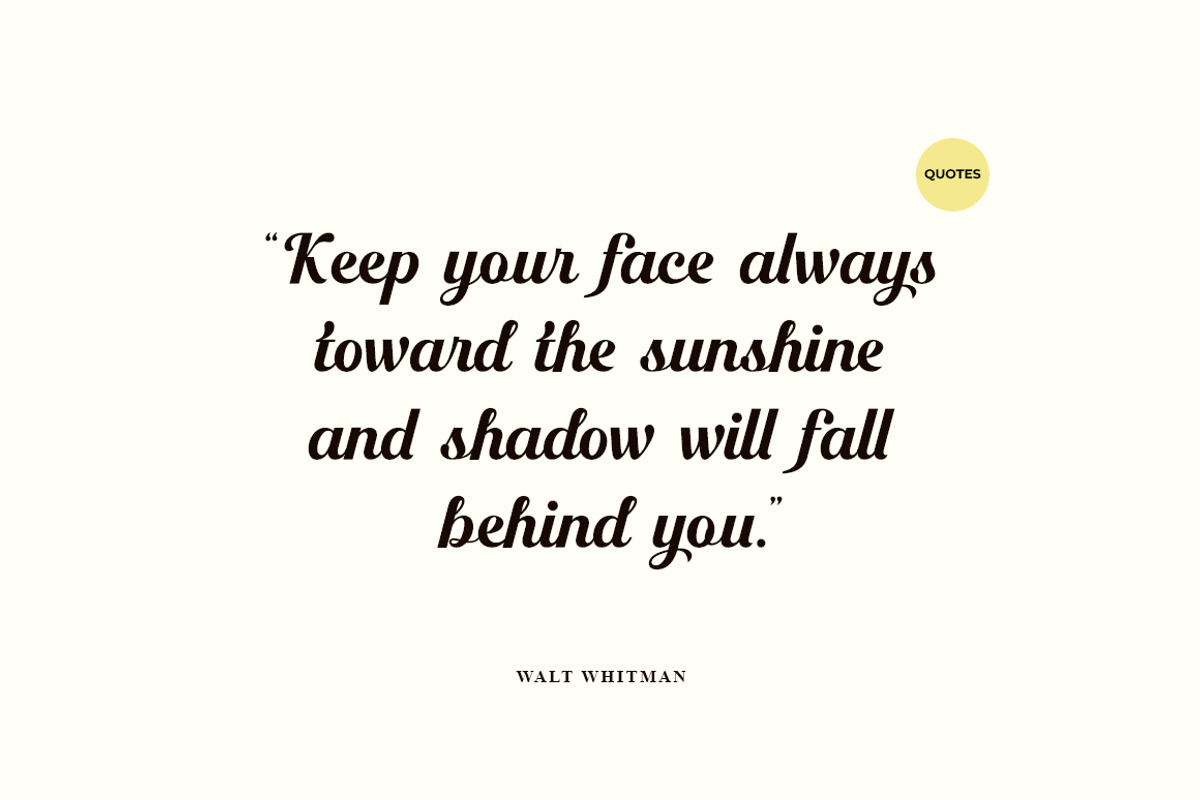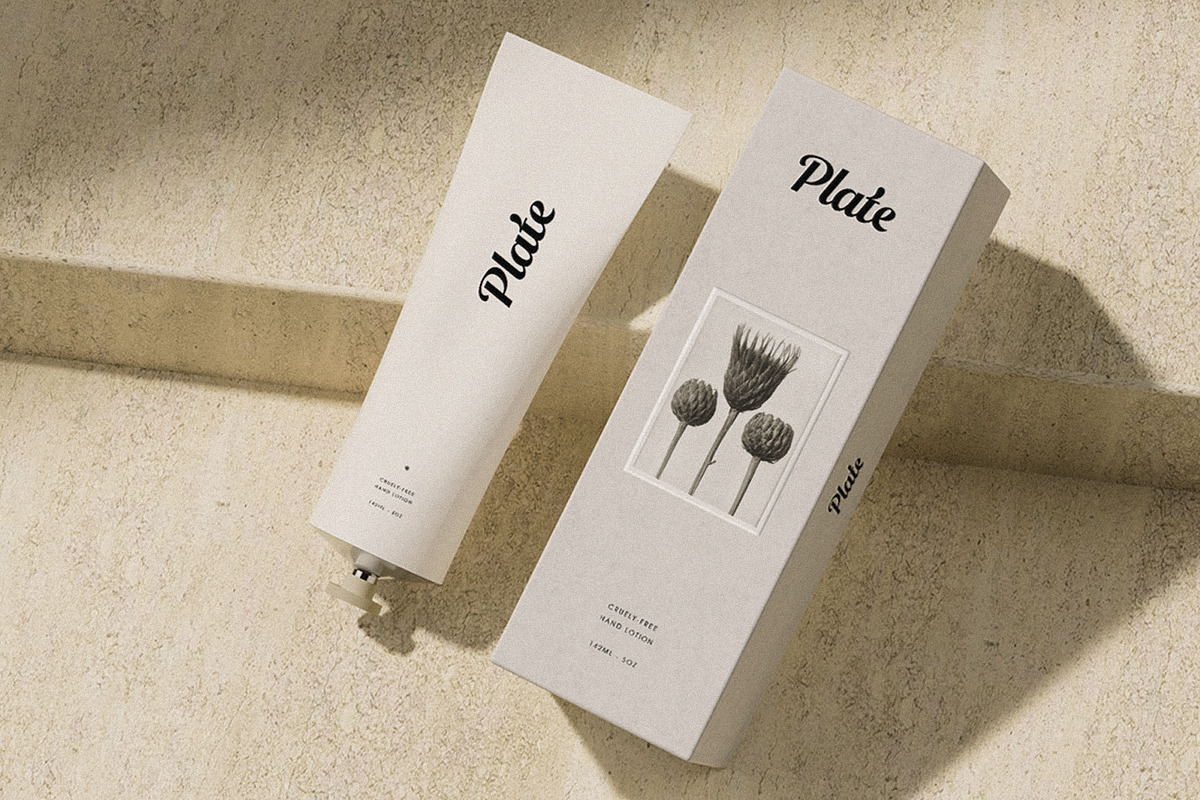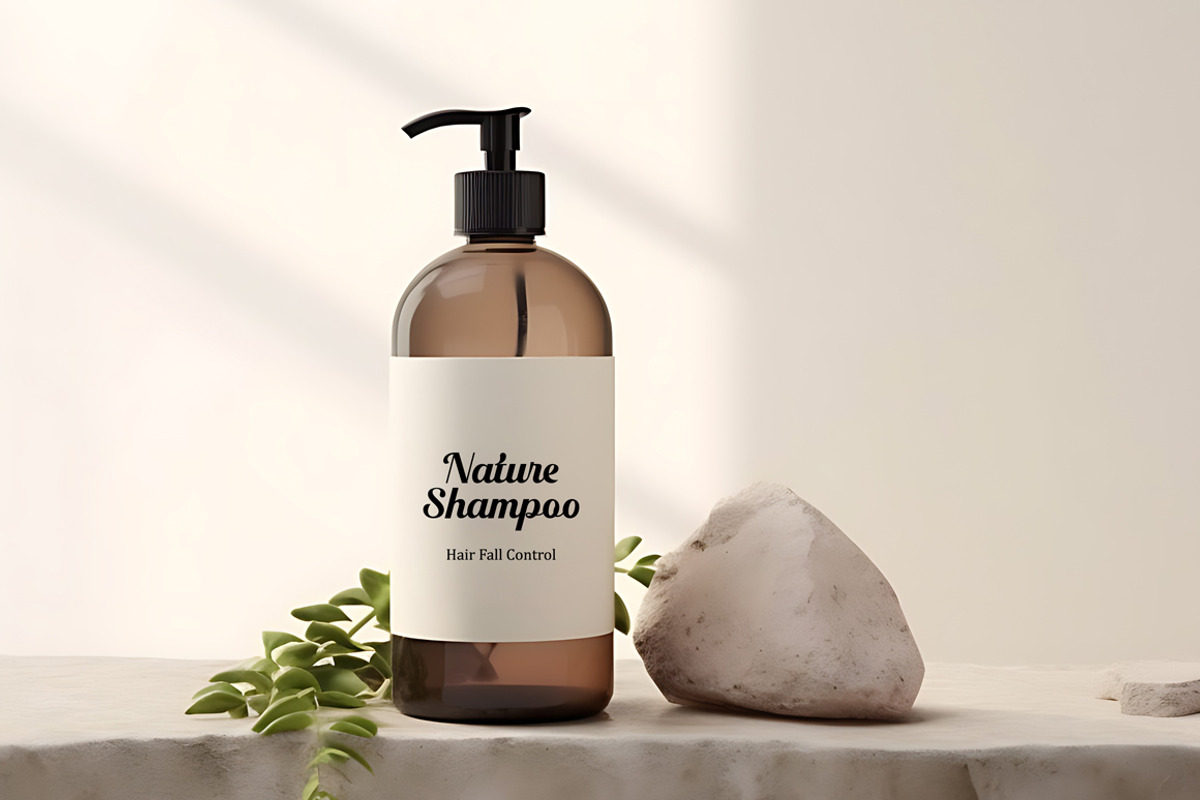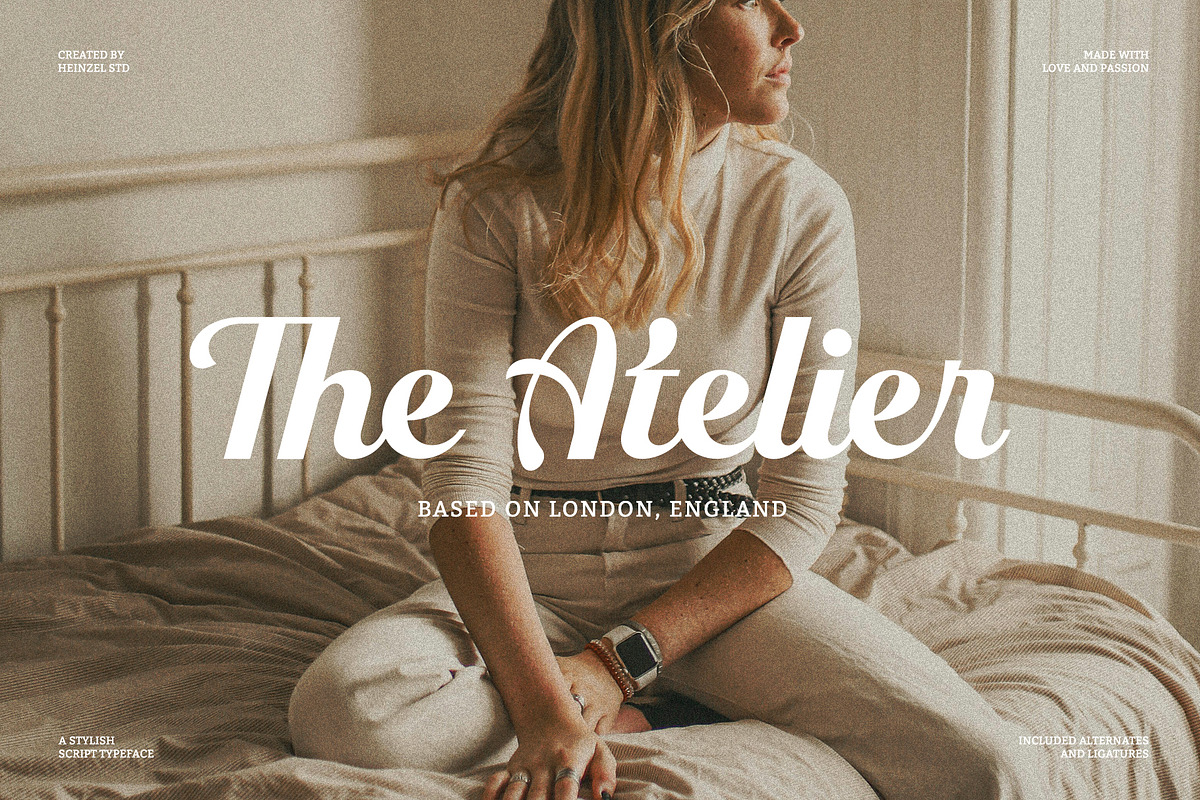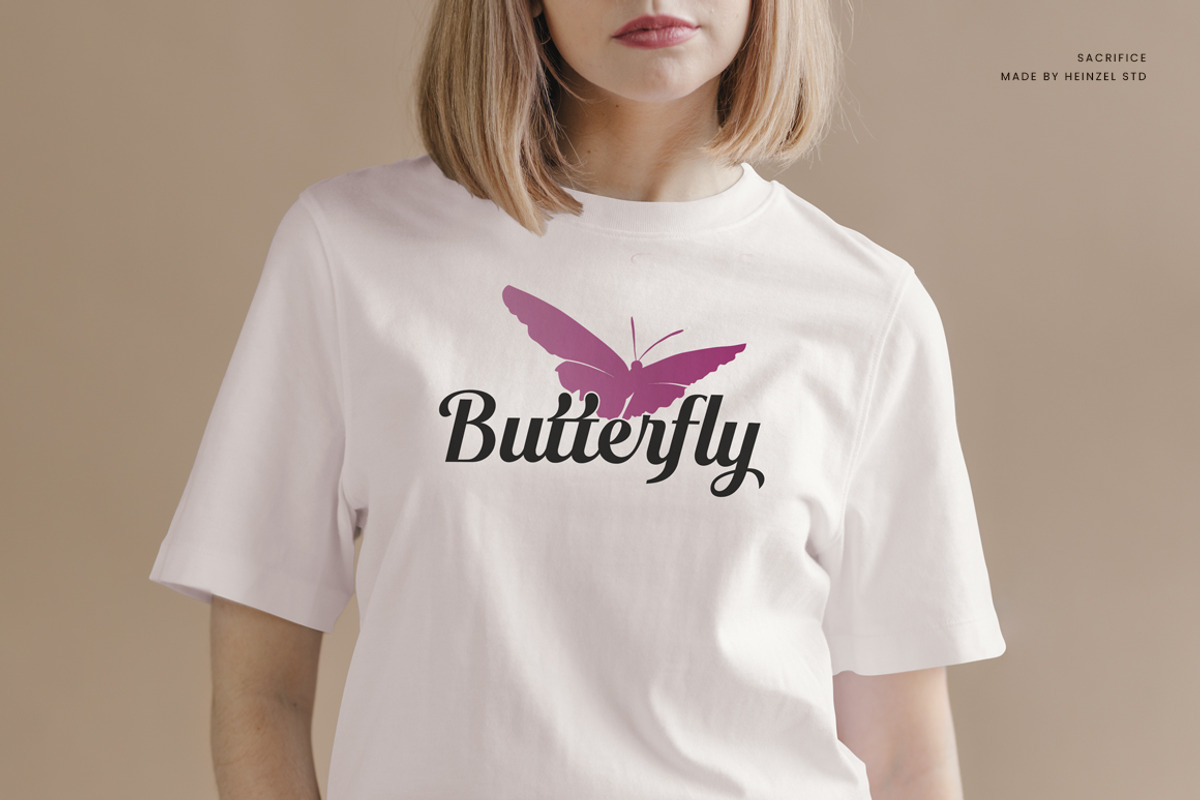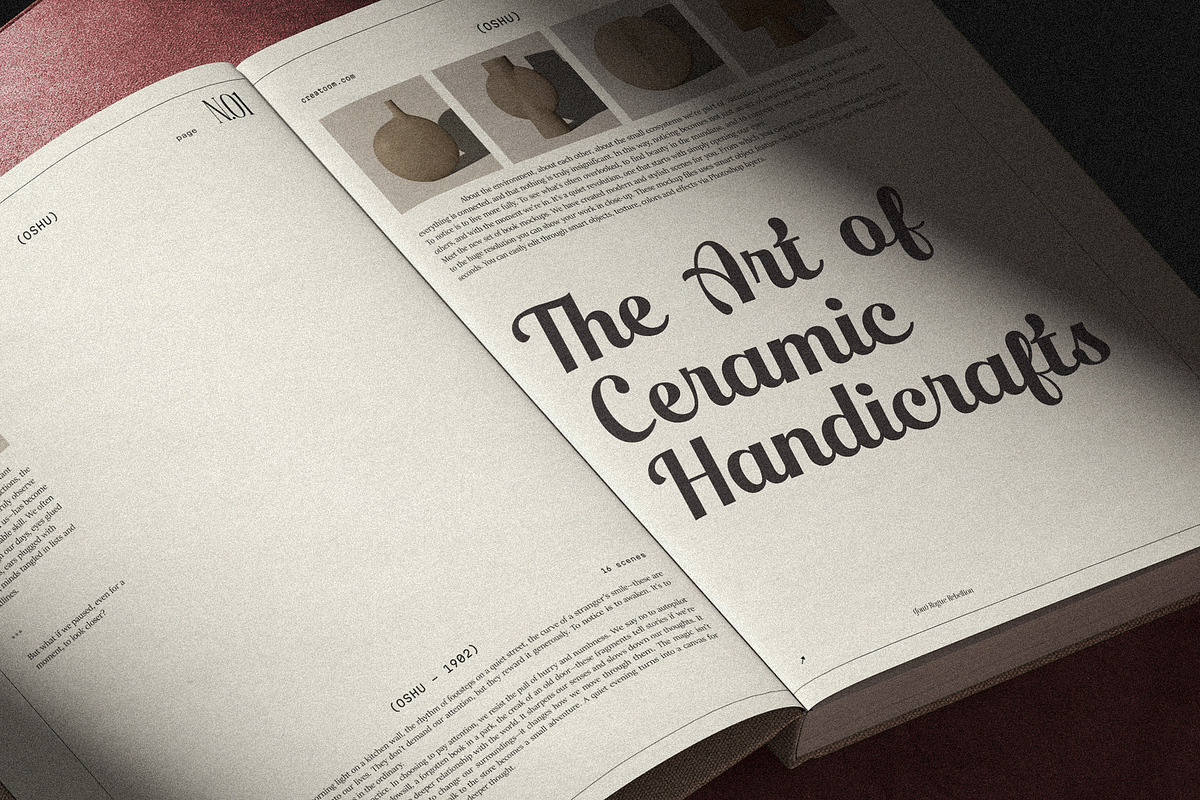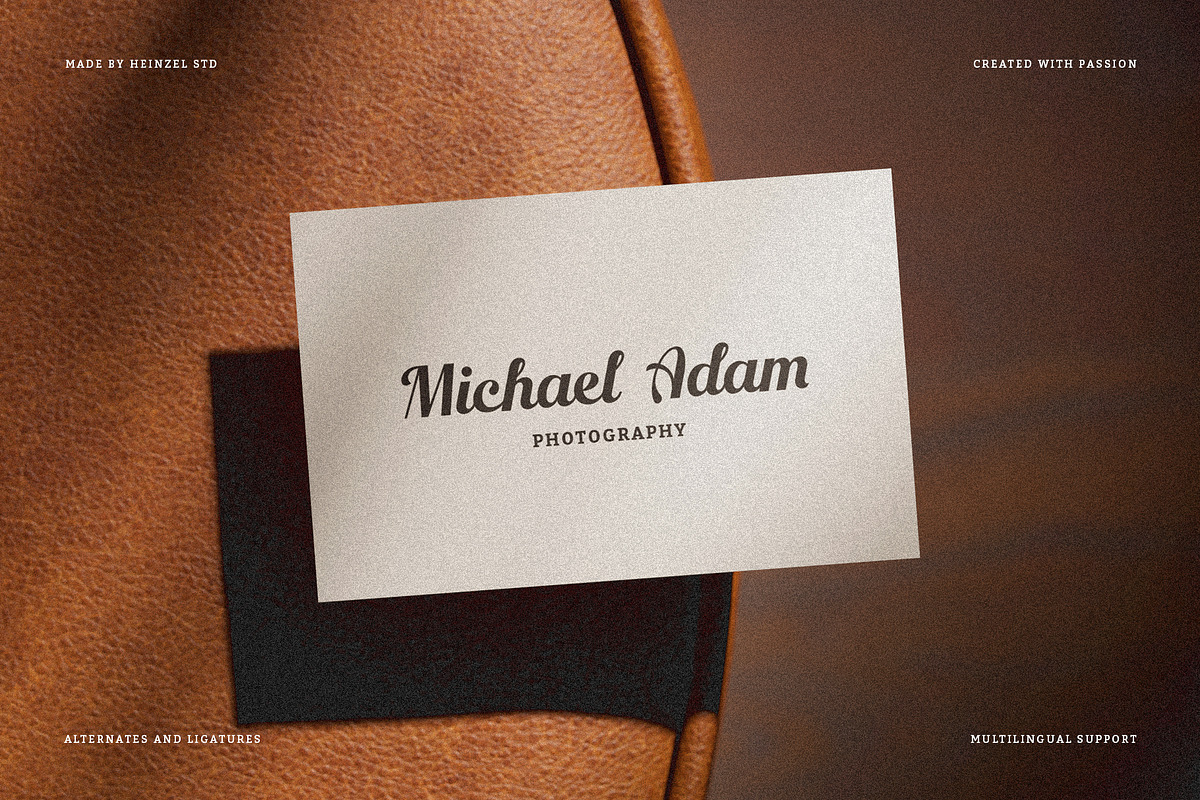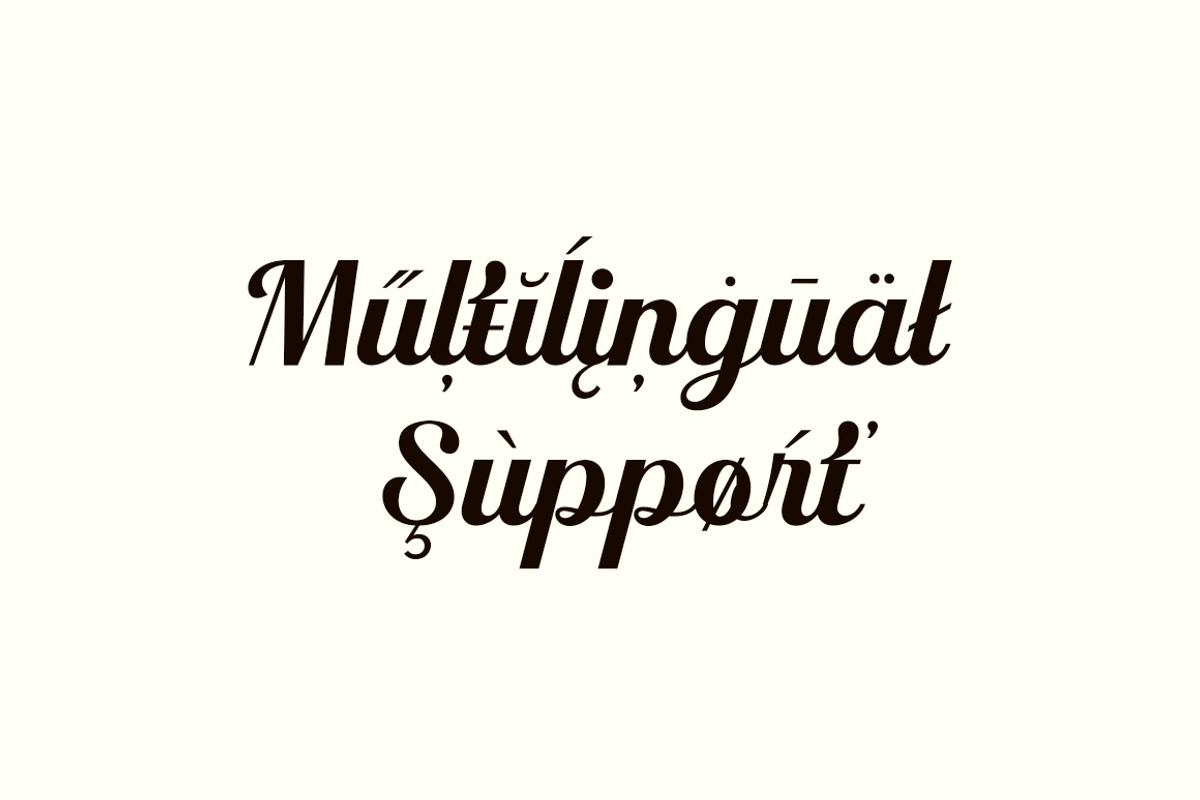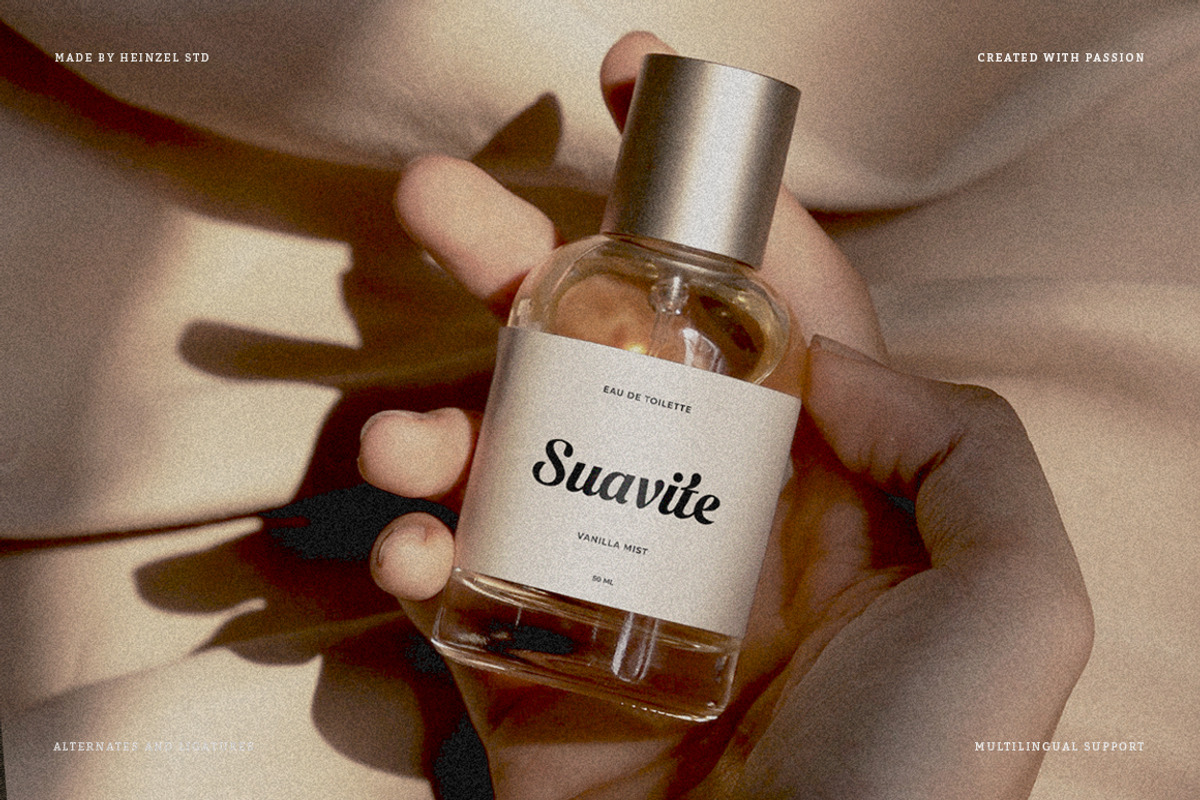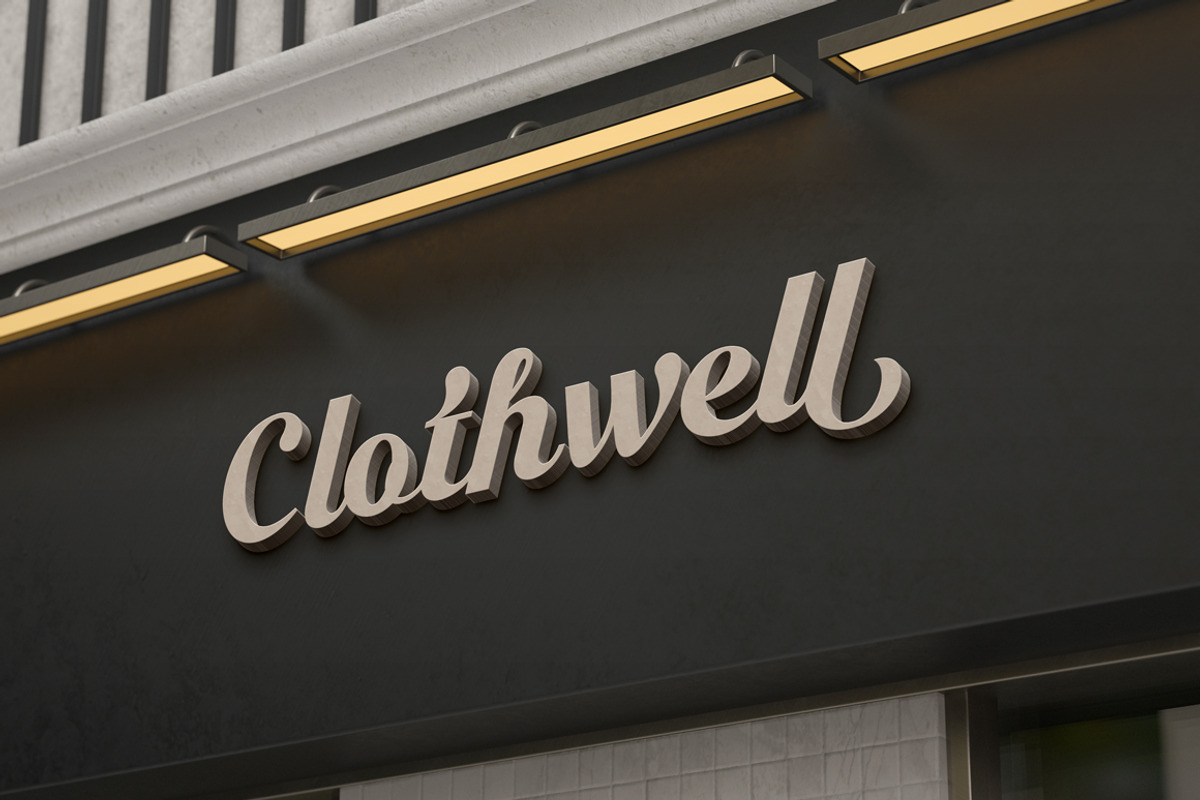
Sacrifice Modern Retro Script Font
Sacrifice is a modern retro script font that blends timeless vintage charm with smooth contemporary elegance. Designed with flowing curves, bold strokes, and soft textures, this script typeface delivers a warm, nostalgic feel while maintaining excellent readability. Perfect for branding, logos, packaging, social media graphics, posters, and editorial design, Sacrifice brings a handcrafted aesthetic to every project. Featuring stylish alternates and ligatures, it allows you to create unique, eye-catching typography with ease. Whether you're aiming for a classic retro vibe or a modern organic look, Sacrifice adds character and personality to your designs.
Sacrifice Features :
Numerals and Punctuations
Ligatures and Alternates